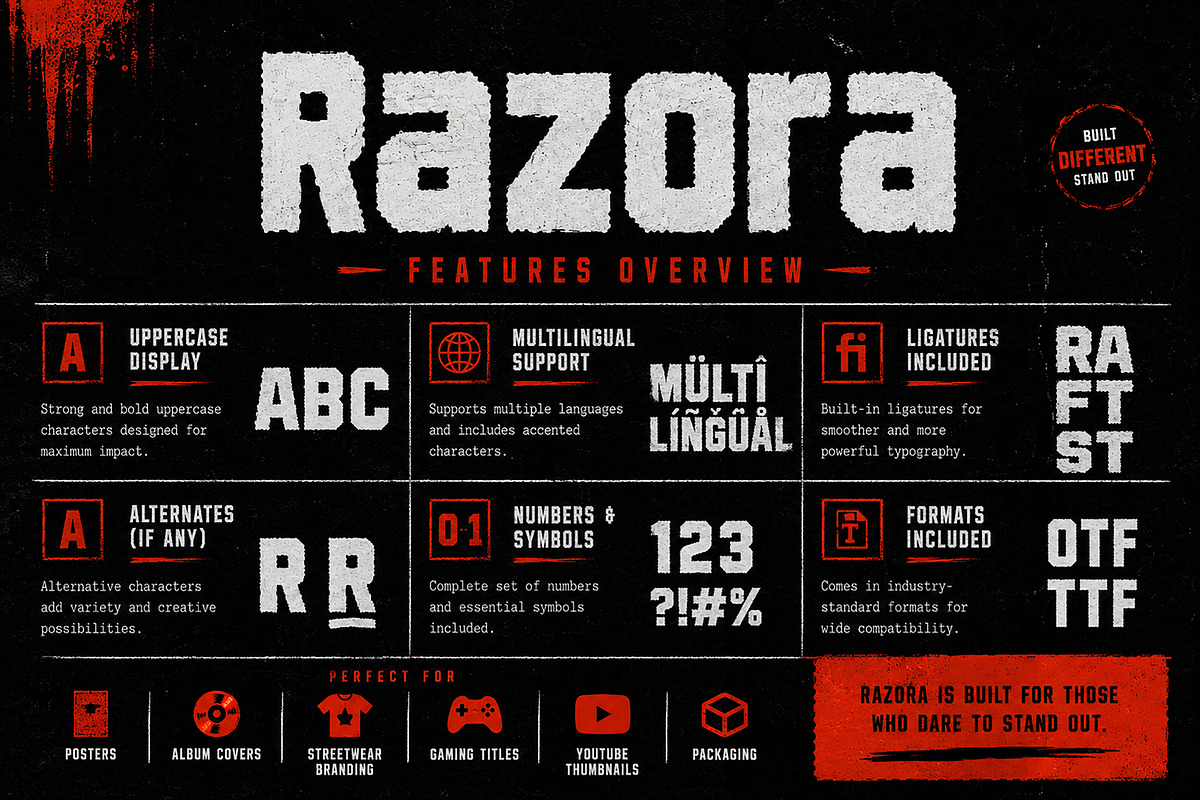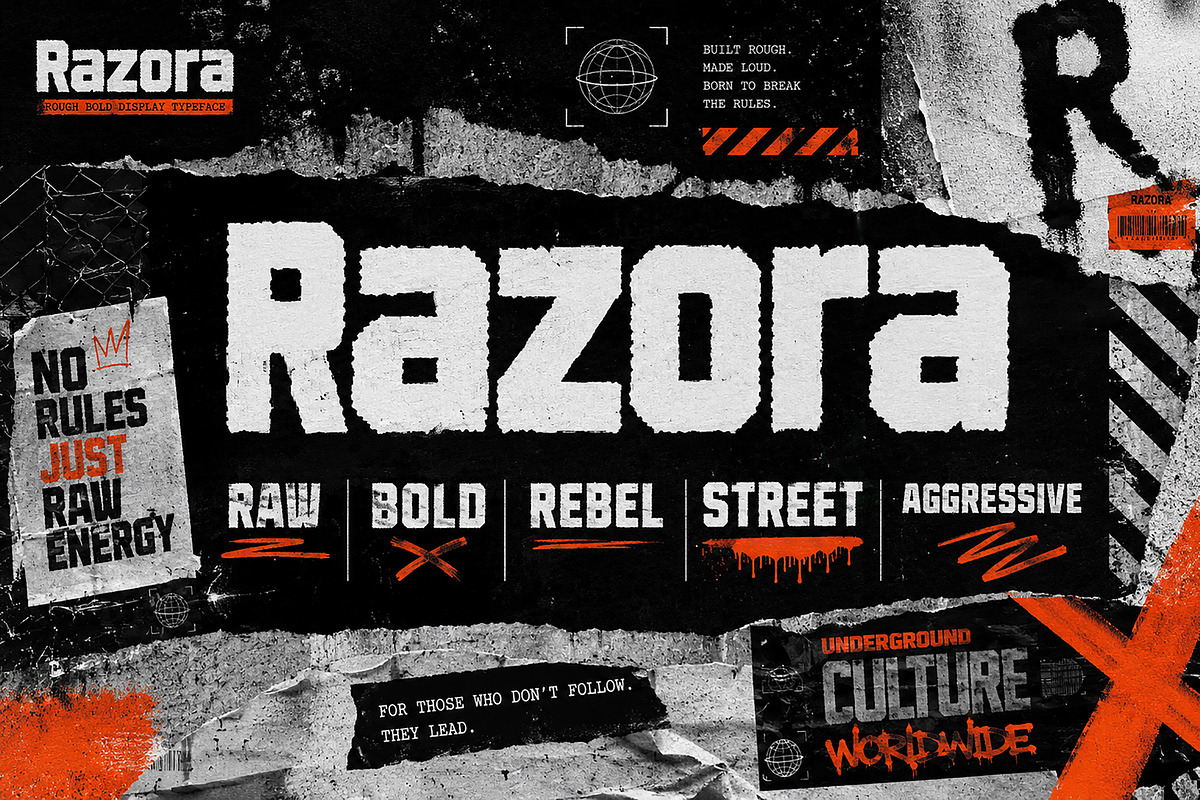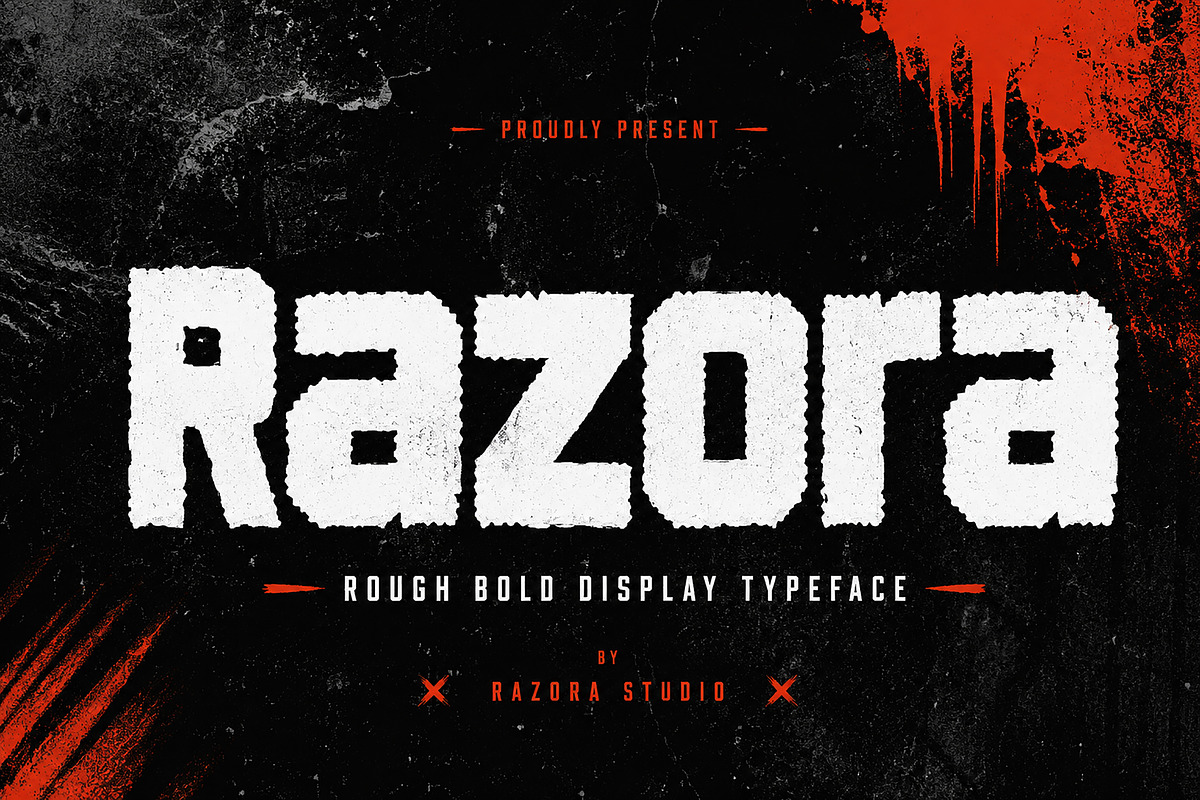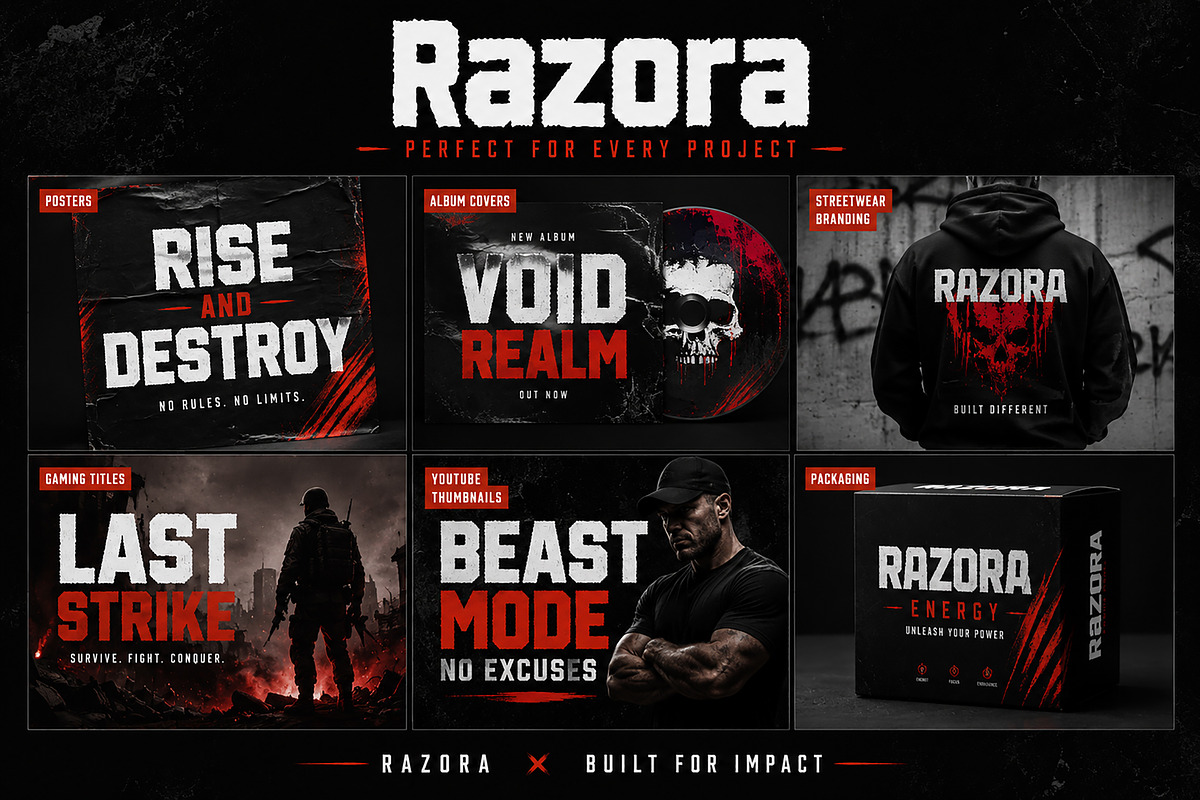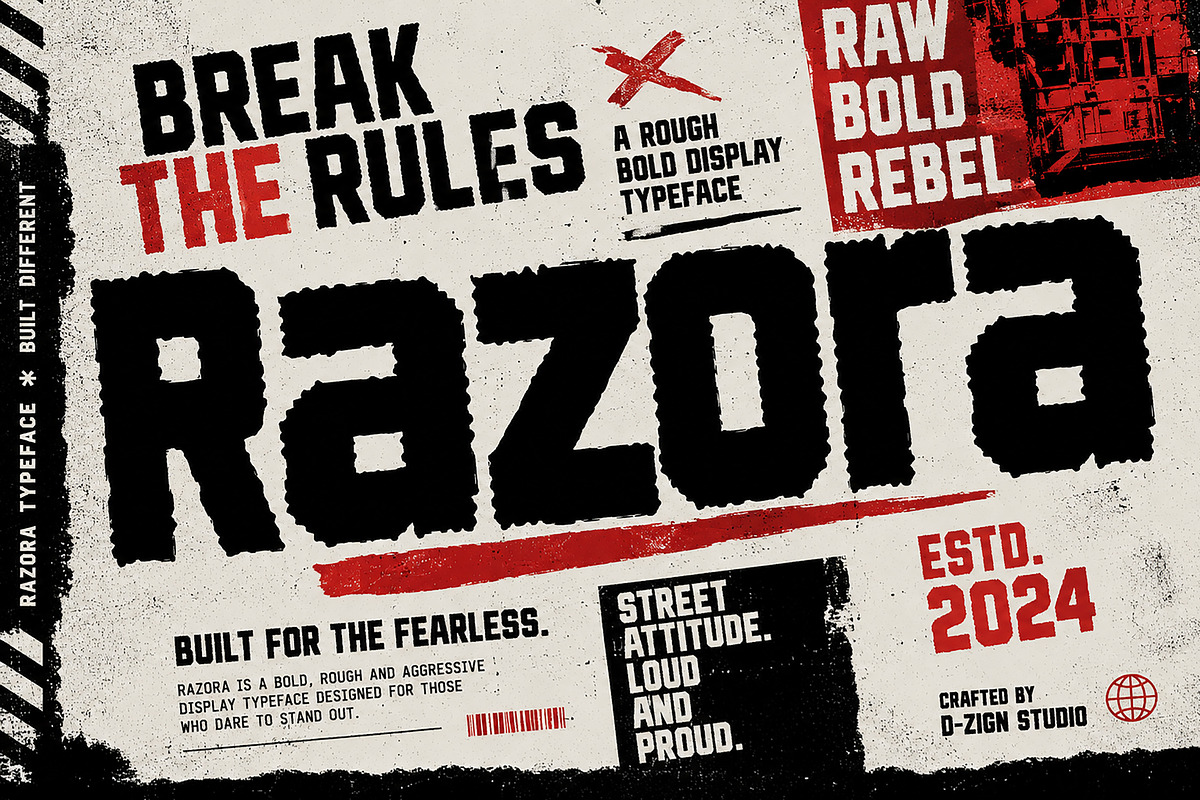
Razora
Razora is a bold rough display typeface built for creators who want to make a loud statement. With its raw edges, distressed texture, and aggressive personality, Razora brings a rebellious energy to any design. Inspired by underground posters, street culture, industrial aesthetics, and punk visuals, this font is perfect for projects that need a strong and fearless presence.
Designed to stand out, Razora works exceptionally well for poster designs, album covers, streetwear branding, gaming titles, YouTube thumbnails, packaging, logos, and editorial headlines. Its rugged texture gives every word a handcrafted and authentic feel, making your designs look powerful, gritty, and unforgettable.
Whether you're creating for urban brands, music projects, or bold marketing campaigns, Razora delivers impact with every letter.
Uppercase Display Typeface
Rough & Distressed Style
Punctuation & Symbols
Numerals Included
Posters
Album Covers
Streetwear Branding
Gaming Titles
YouTube Thumbnails
Logos
Headlines
Editorial Layouts
Bring raw energy and bold attitude into your next project with Razora.